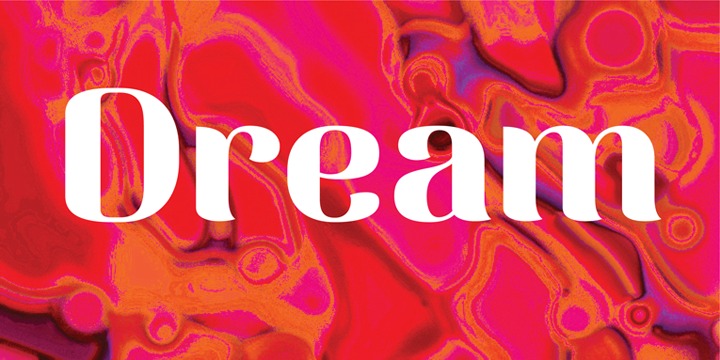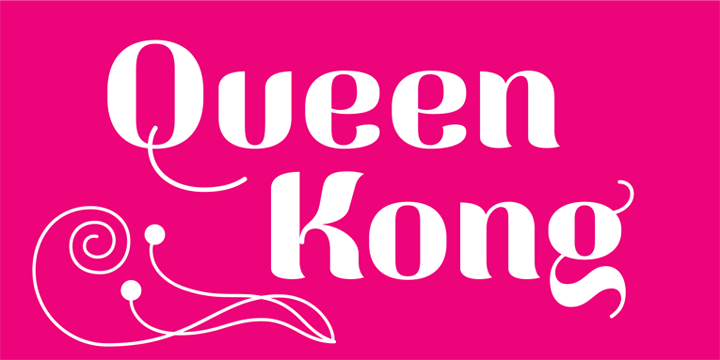
Motavita Poster
Motavita Poster Font
A font for those who wish to develop projects of large format or get very highlighted titles.
Motavita Poster is a font that always look good when using very large. We recommend that you not use smaller 60 points. The great contrast between the stems and vertical strokes gives a strong and elegant character.